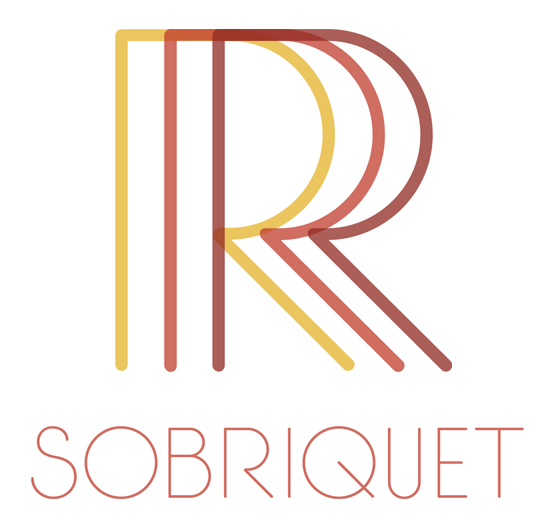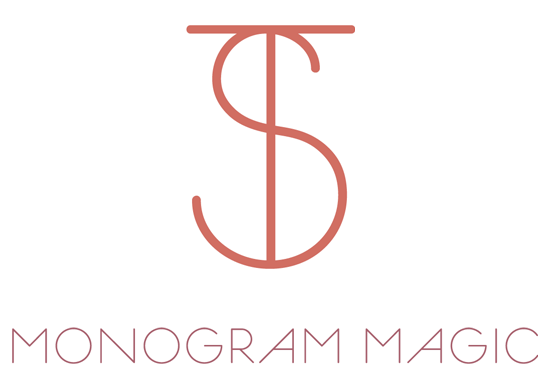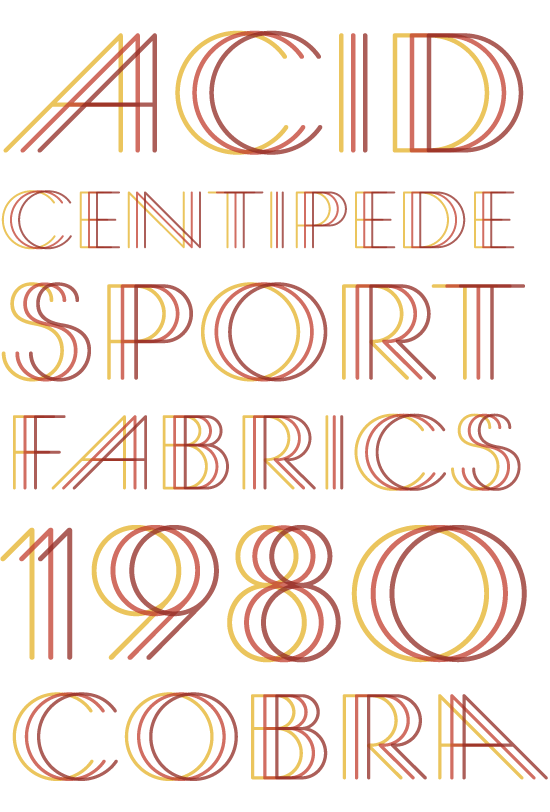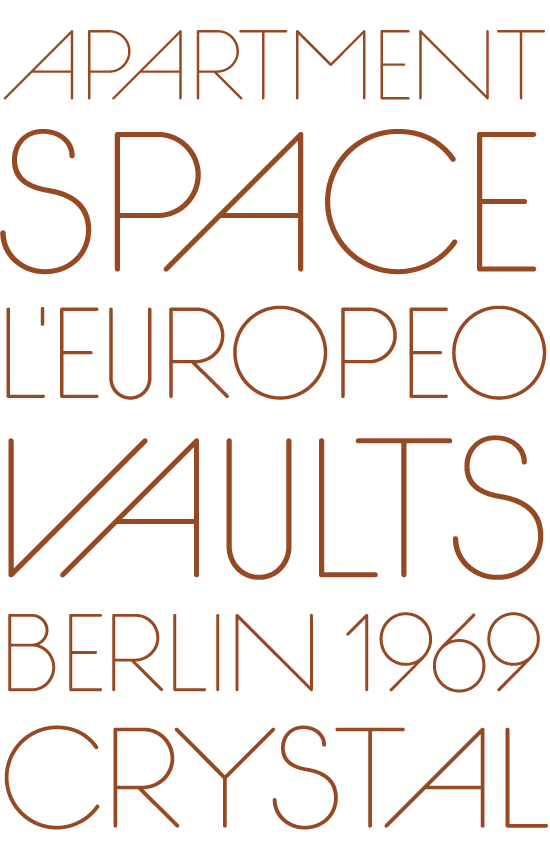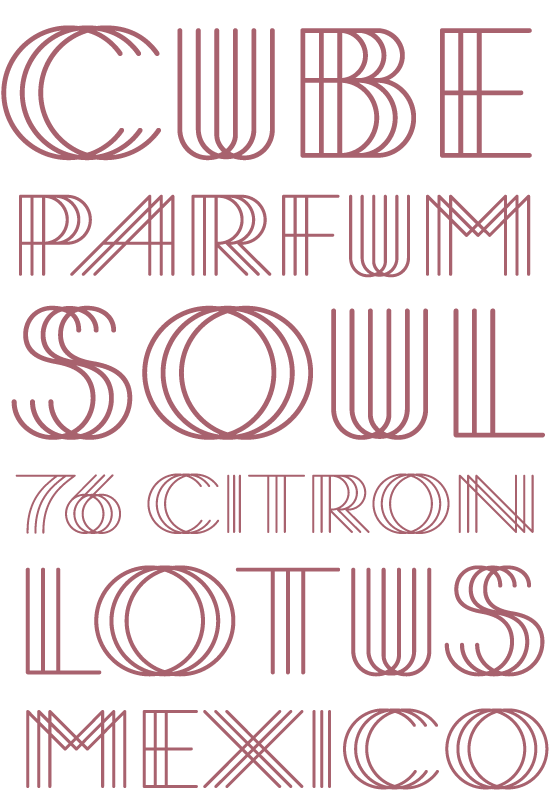
Photo-Lettering presents Sobriquet, a luxuriously spartan geometric sans serif alphabet from Jeremy Mickel. Try Sobriquet in its monochromatic glory or build dimension into any headline with a triple-layer version that features color options limited only by the visible color spectrum and the desire to inspire vertigo. There’s also an industriously inscriptional Sobriquet variant builds monograms from two or three letter combinations.